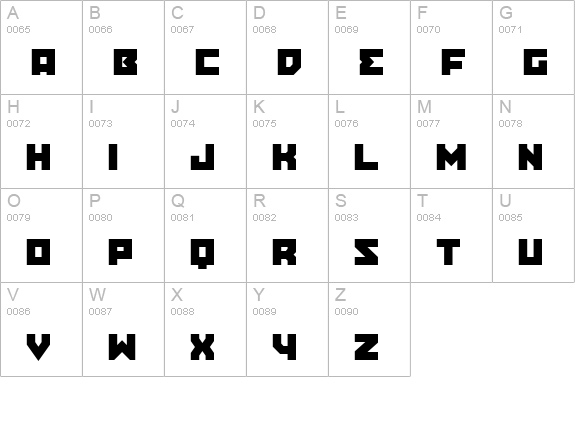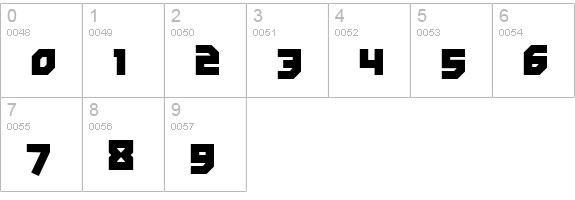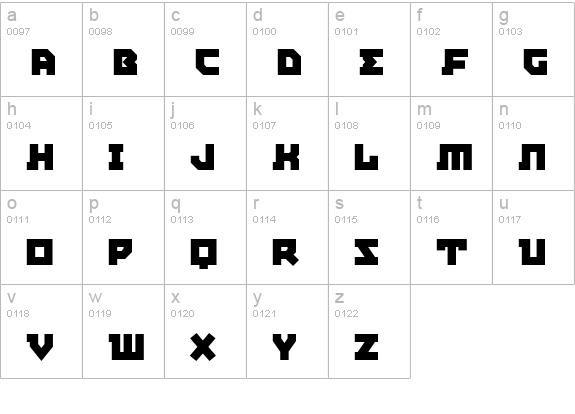
AgitProp Medium is a balanced, medium-weight variant in the AgitProp typeface family \xE2\x80\x94 well suited to sub-headlines, navigation, and balanced editorial work.
AgitProp Medium font is a versatile and eye-catching typeface that combines modern design with a touch of edginess. Its bold strokes and sharp angles make it perfect for making a statement in any design project. Whether you're creating posters, banners, or social media graphics, AgitProp Medium font will command attention and leave a lasting impression. The best part? AgitProp Medium font is completely free to download at FontsMarket.com. This means you can easily access this powerful font and incorporate it into your designs without any cost. Don't miss out on the opportunity to enhance your creative projects with the bold and impactful AgitProp Medium font - download it today and let your designs speak volumes!